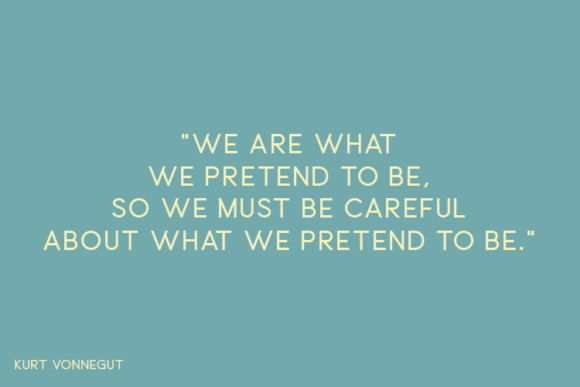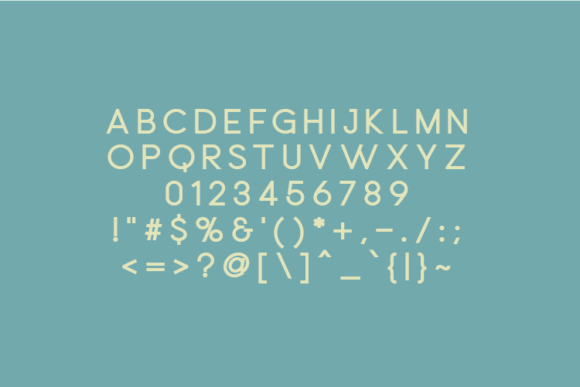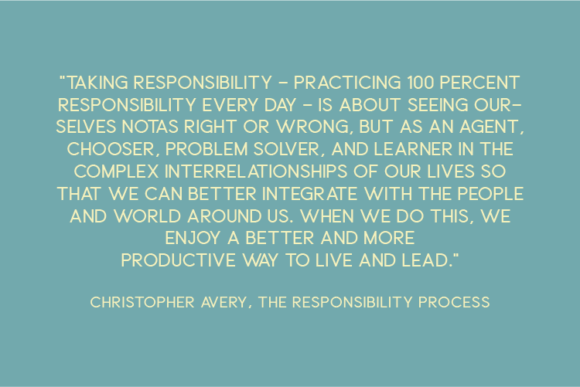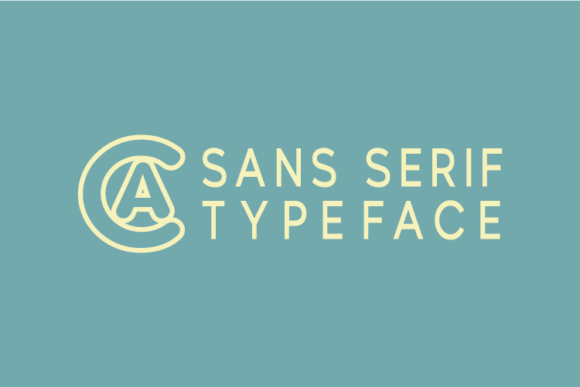
Introducing Exotica Font: Elevate Your Designs with Modern Elegance
In the world of typography, a font can make or break a design. It’s the foundation upon which creativity is built, and the right choice can elevate a project from ordinary to extraordinary. For designers and crafters seeking a modern, classy sans serif typeface, look no further than Exotica Font. This versatile and stylish font is poised to become your go-to choice for a wide range of design applications.
What is Exotica Font?
Exotica is a thoughtfully crafted sans serif typeface that boasts a clean, contemporary aesthetic. Its character set includes upper characters, numbers 0-9, and a comprehensive range of punctuation and symbols, ensuring that you have everything you need to bring your designs to life. Whether you’re working on a logo, wedding invitation, advertisement, or magazine spread, Exotica Font provides the perfect blend of form and function.
Key Features of Exotica Font
- Modern and Classy Design: Exotica’s sleek, sans serif lines exude a sense of sophistication and elegance, making it ideal for designs that demand a high level of professionalism.
- Versatility: From logos and branding materials to wedding invitations, quotes, and advertisements, Exotica Font adapts seamlessly to various design contexts.
- Comprehensive Character Set: With upper characters, numbers 0-9, and a wide range of punctuation and symbols, Exotica Font is fully equipped to handle all your typographic needs.
- Easy to Read: The clear, uncluttered design of Exotica ensures that your message is conveyed with clarity, making it perfect for both print and digital applications.
Use Cases for Exotica Font
The versatility of Exotica Font makes it suitable for a myriad of design projects. Here are some of the most popular applications:
- Logos and Branding: Create a lasting impression with a logo that embodies modernity and class.
- Weddings and Invitations: Add a touch of elegance to your wedding invitations, save-the-date cards, and other ceremonial materials.
- Advertisements: Stand out in the crowded advertising space with bold, eye-catching typography.
- Print and Magazines: Elevate your magazine spreads, brochures, and flyers with a font that commands attention.
- Quotes and Typography Art: Create stunning typographic art pieces that inspire and motivate.
Why Choose Exotica Font?
In a sea of typefaces, Exotica Font stands out for its unique blend of modernity, elegance, and versatility. Here are a few reasons why designers and crafters are making Exotica their font of choice:
- Unique Aesthetic: Exotica’s distinctive design ensures that your projects have a unique visual identity.
- Time-Saving: With its comprehensive character set and easy-to-read design, Exotica saves you time and effort in your design process.
Exotica Font is more than just a typeface – it’s a design solution that offers the perfect blend of modernity, elegance, and versatility. Whether you’re a professional designer or a crafting enthusiast, Exotica is poised to become an indispensable part of your creative toolkit. With its wide range of applications and user-friendly design, Exotica Font is the ideal choice for anyone looking to elevate their designs and make a lasting impression.